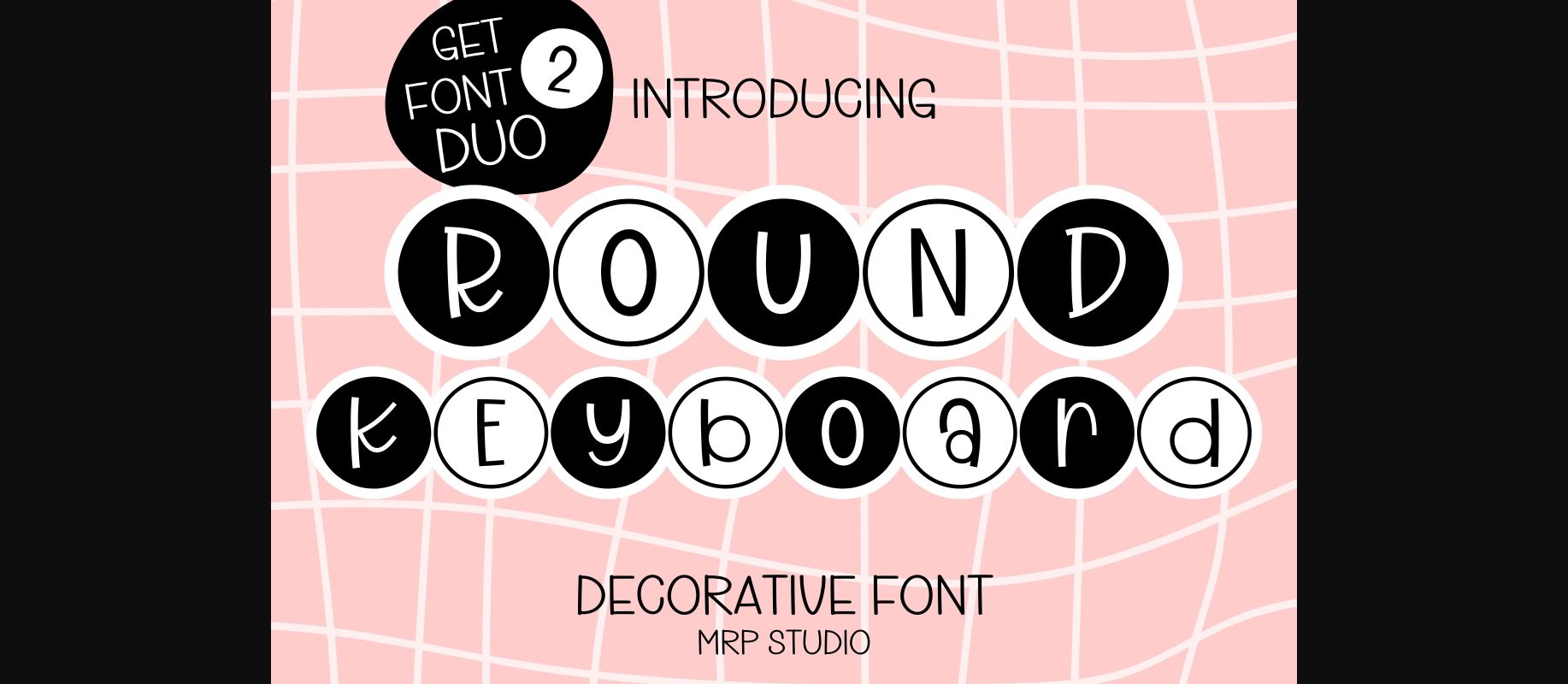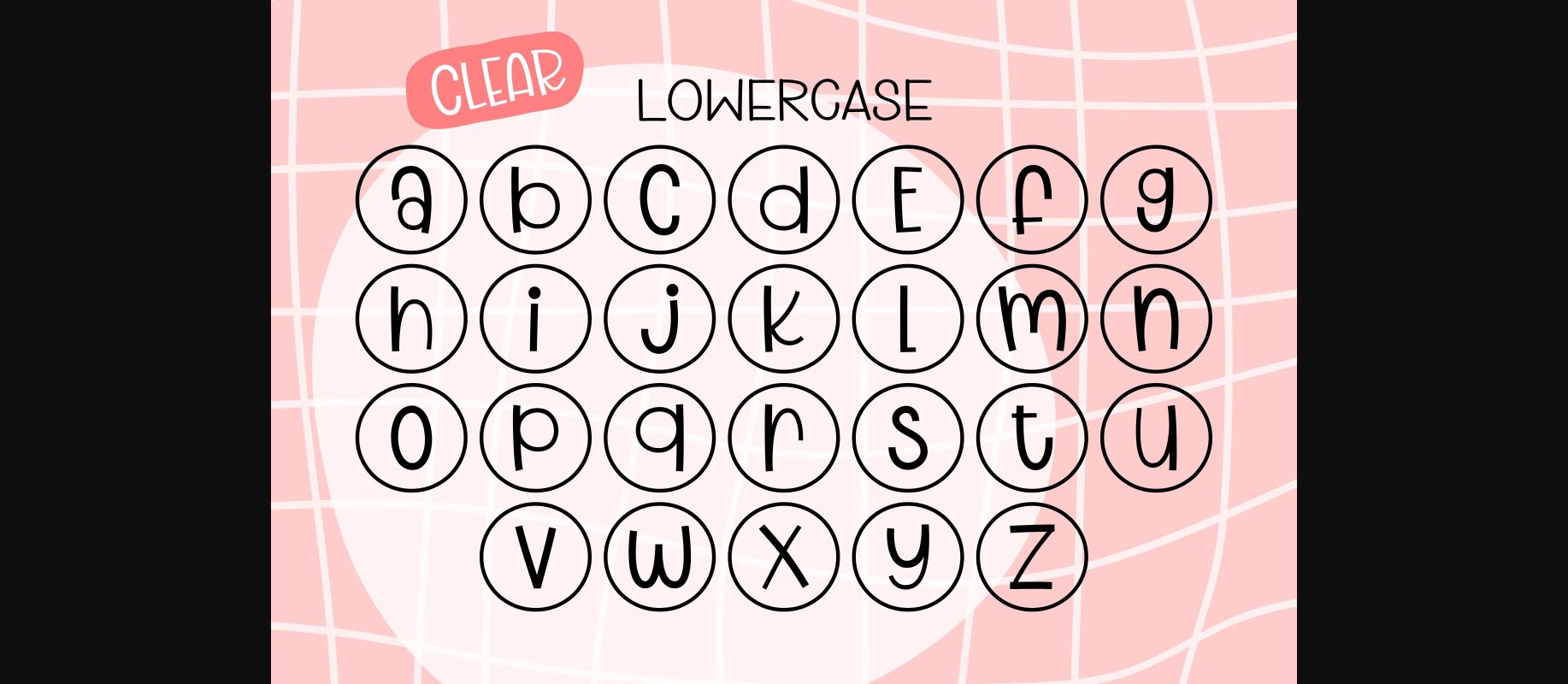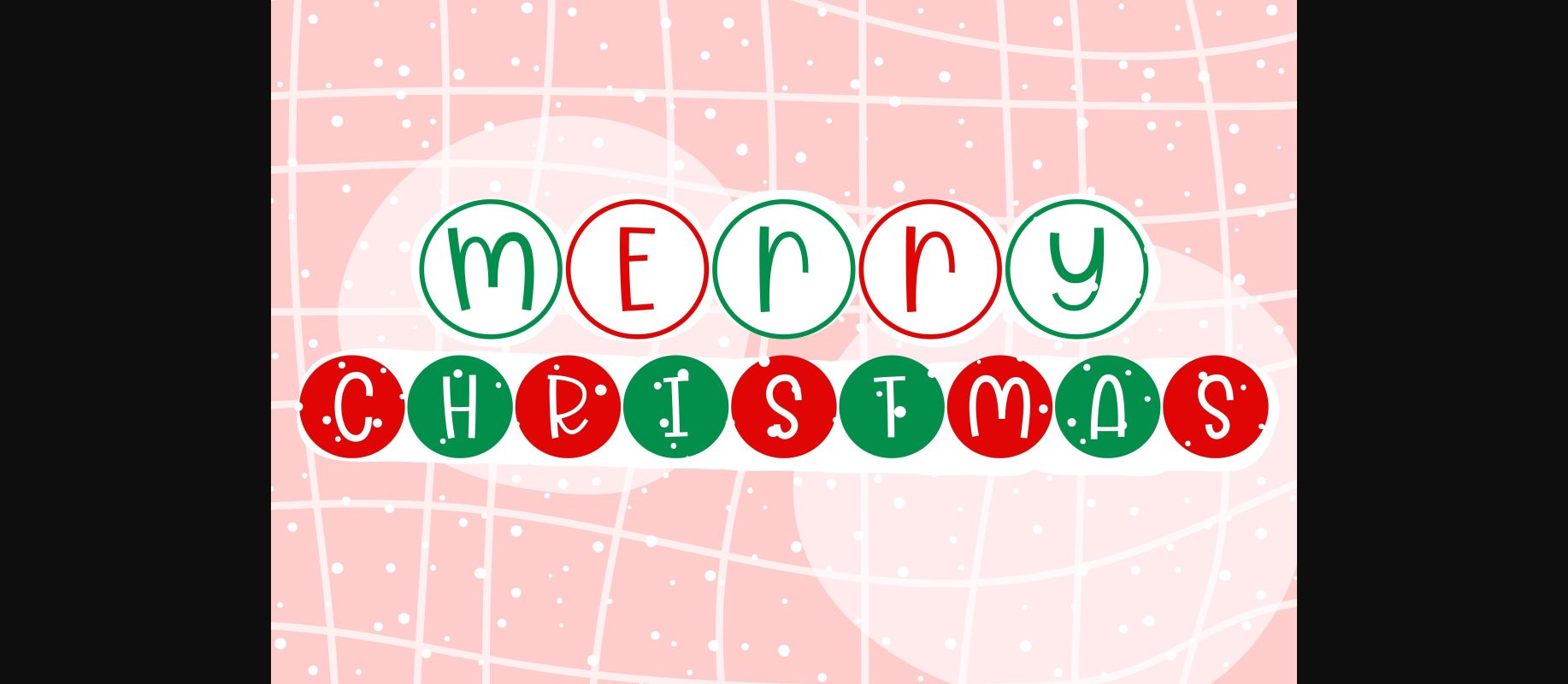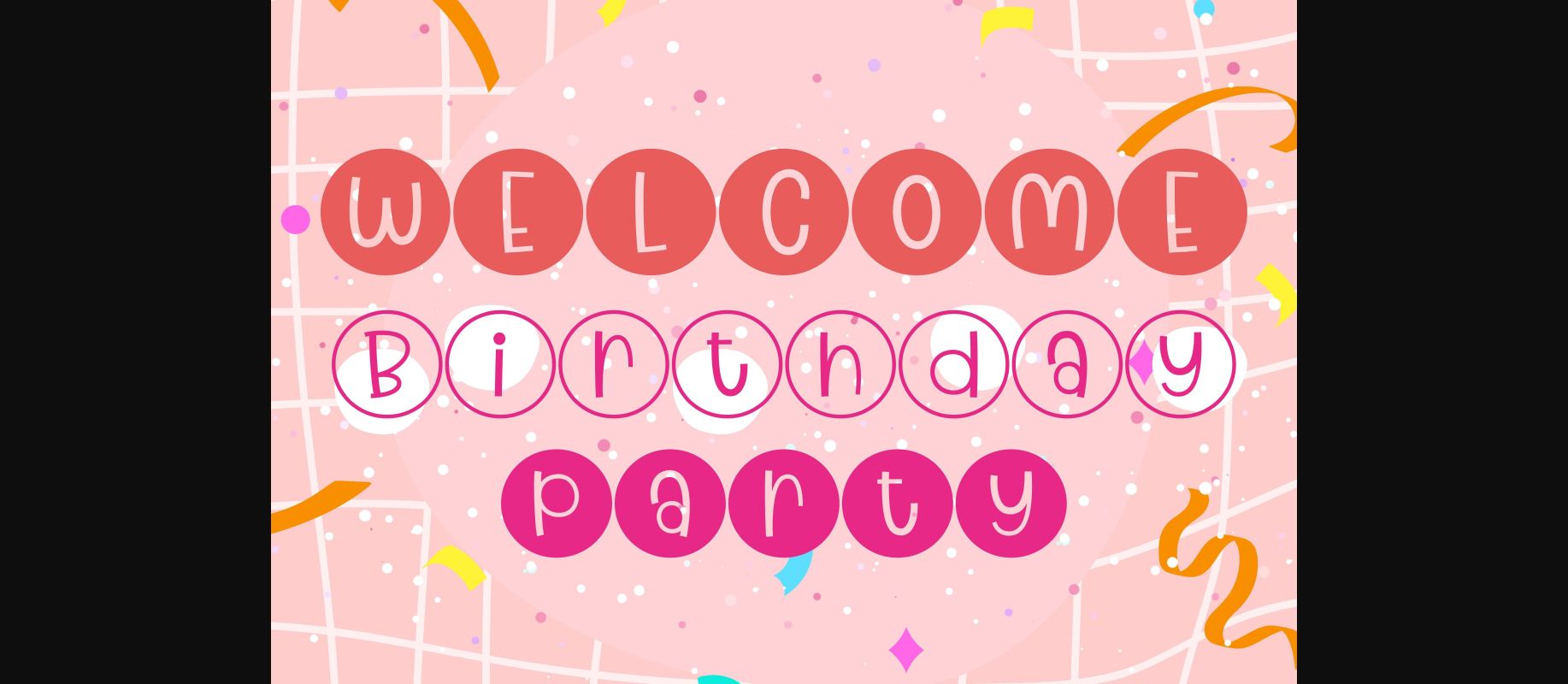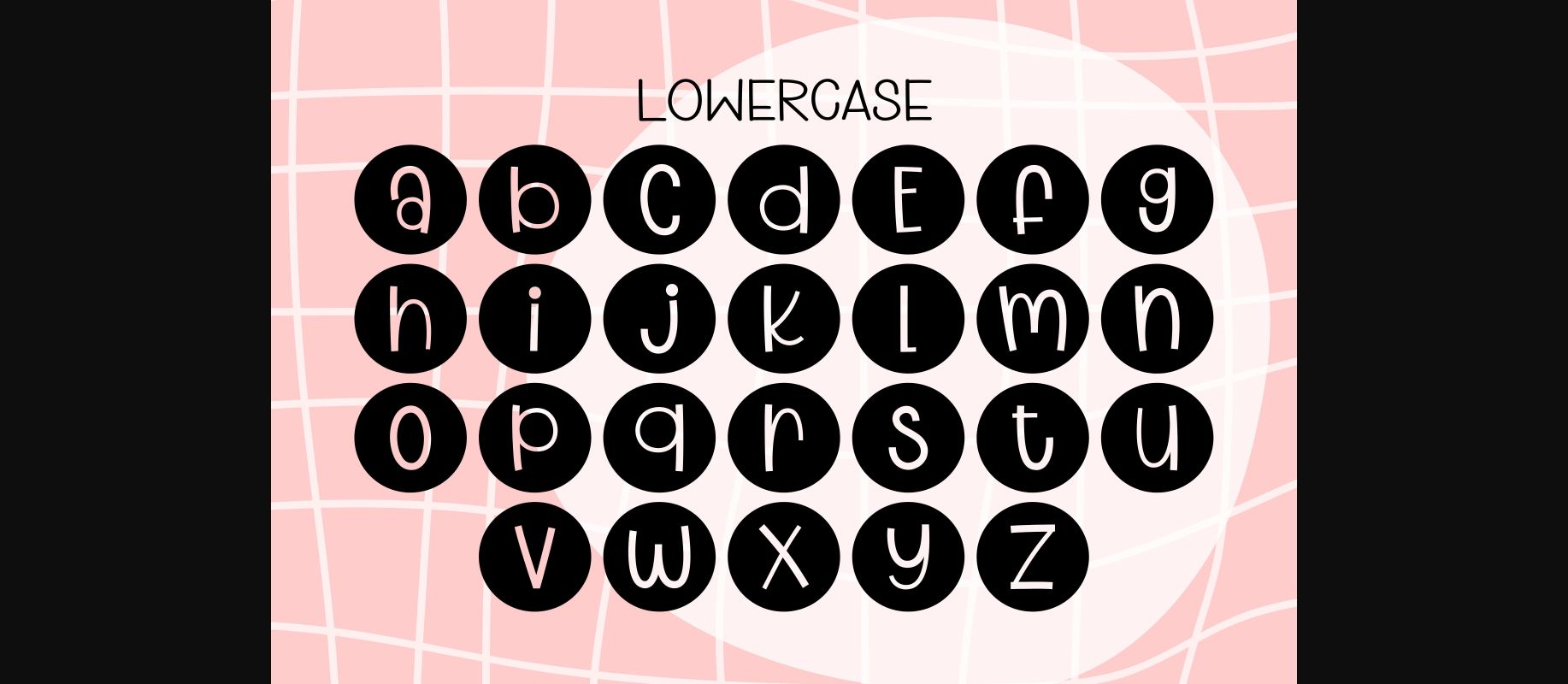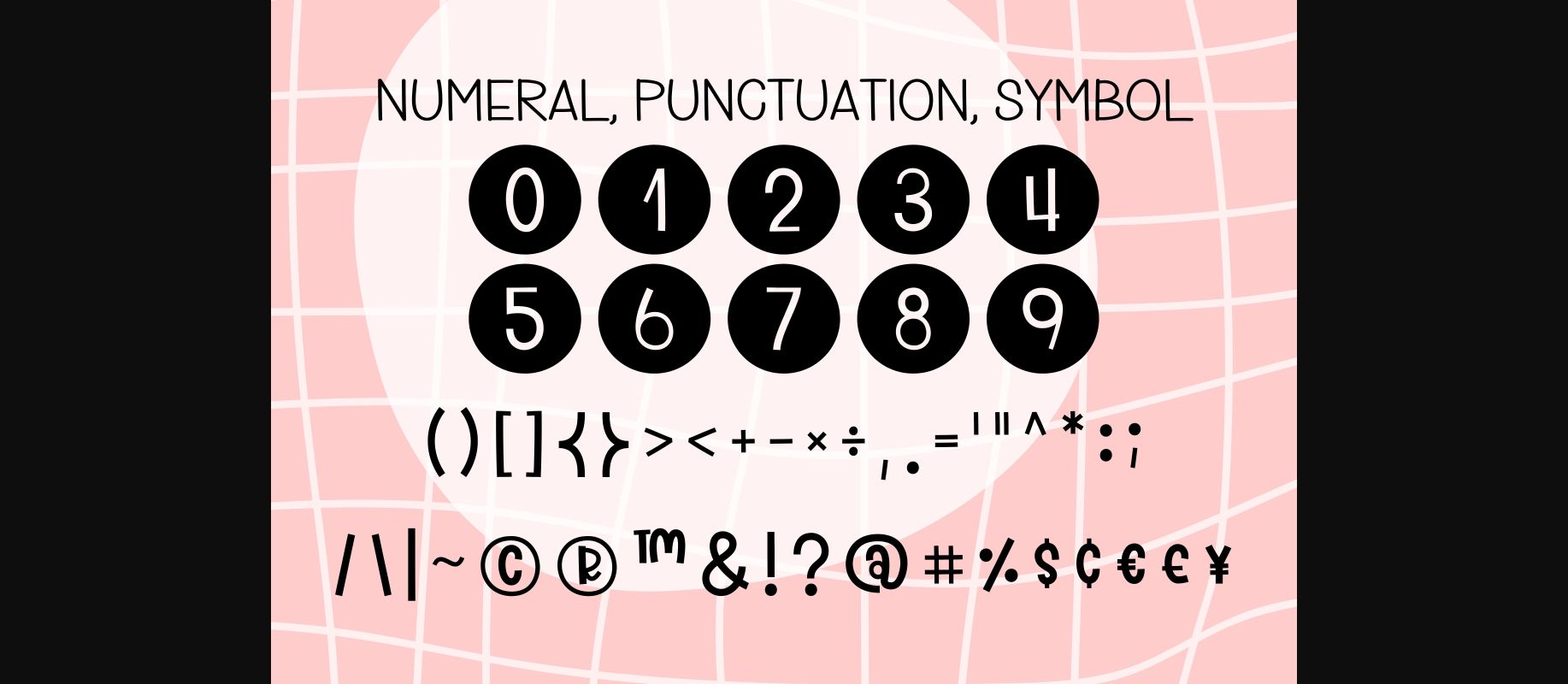
About Round Keyboard Font
Round Keyboard is designed in a playful and adorable decorative font style. It would be awesome to your colorful projects, Halloween, Christmas, child-relate projects, mom projects, weddings, back-to-school, party decorations, invitations, posters, blogs, clothing, greeting cards, social media posts or anything that needs a friendly touch. Let’s try it and add it to your creative ideas and notice how it makes them stand out!